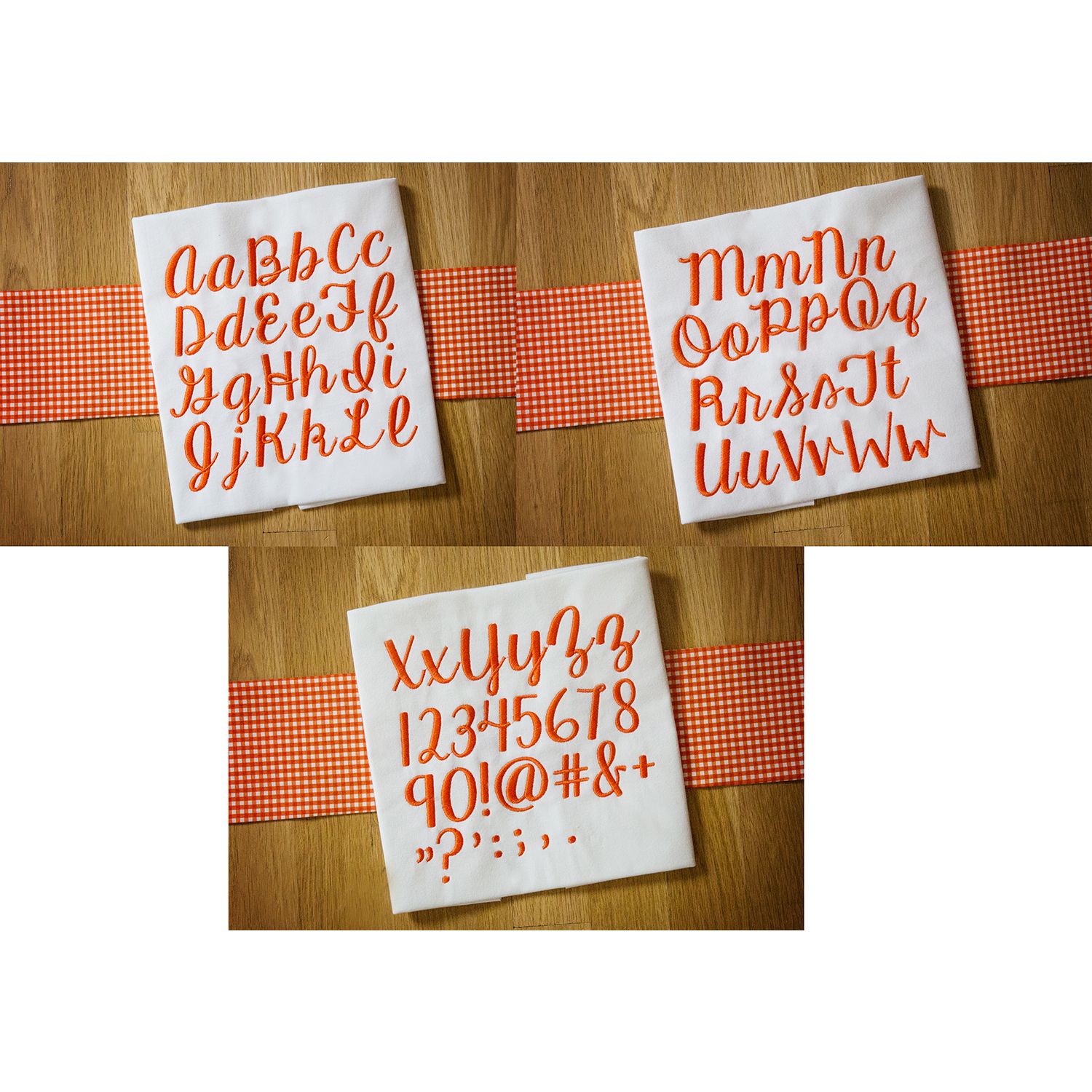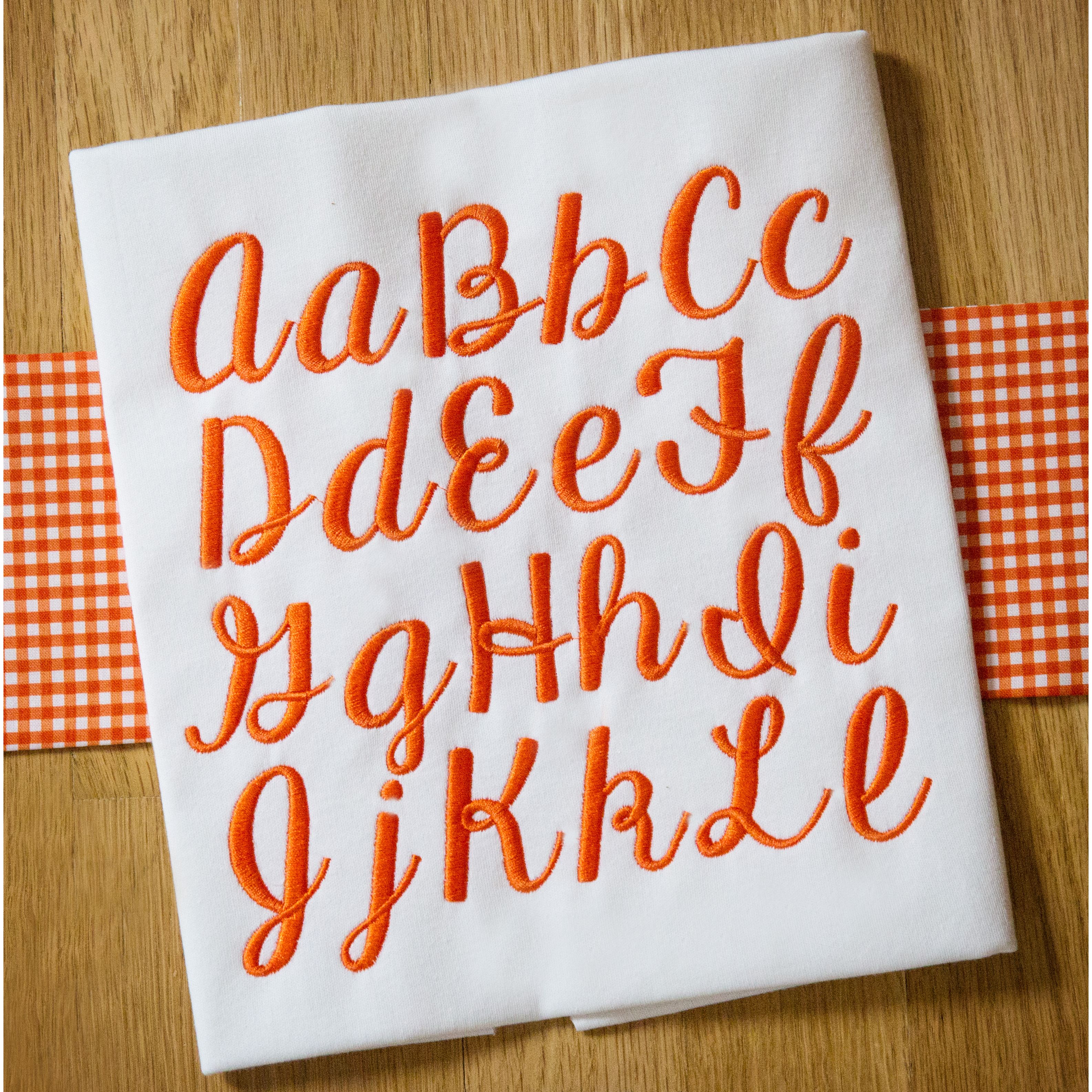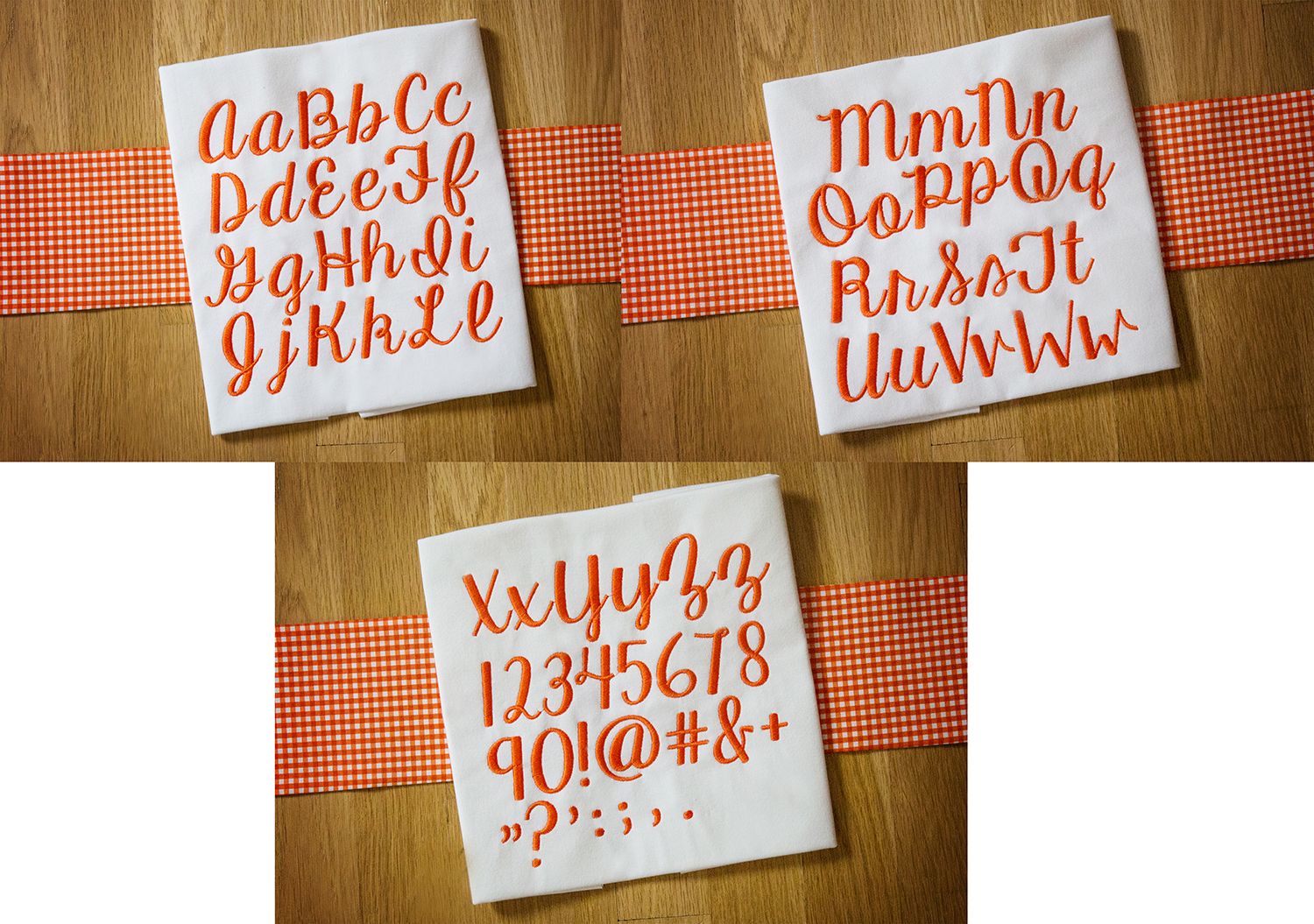
Manhattan Script Satin Stitch Embroidery Font
A wonderful, bold script font..stitches out beautifully!  All of our font alphabets are 100% manually digitized to bring you maximum stitch quality.